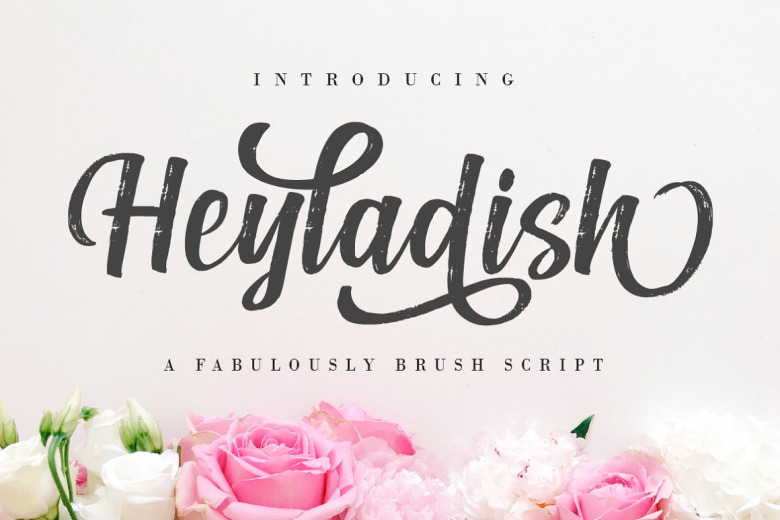
Heyladish Font
Heyladish Brush Script Font , very suitable as to make adorable invitation for wedding, birthday, special day. A collection of letters and numbers suitable your projects also great for Logotype, Branding Design, Logo Design, Digital Lettering Arts, T-Shirt/Apparel, Poster, Magazine, Signs, Advertising Design, and also perfect for your other projects branding.
Heyladish Brush Script Font